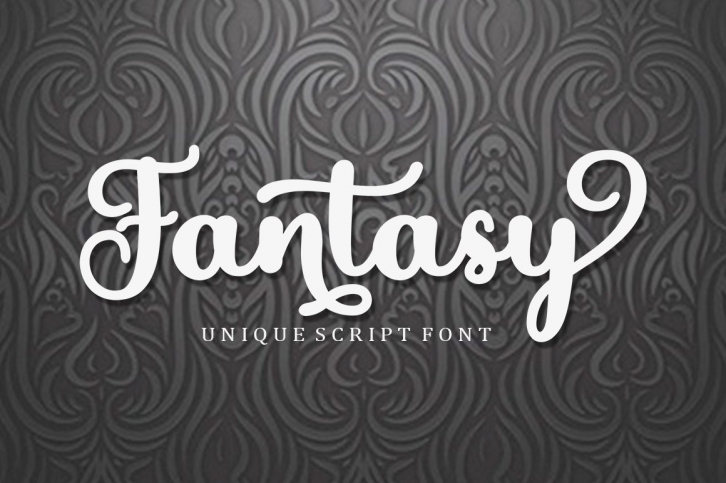
Fantasy is a great font that was designed by bosstype studio1. Imagine the amount of combinations you can create using this font! The archive is 19.32 MB and it was released on September 2, 2021. Fantasy looks beautiful on wedding invitations, greeting cards, logos, posters, labels, t-shirt designs, logos, business cards and is perfect for use in ink or watercolor works, fashion, magazines, packaging and food menus, children's books and more!